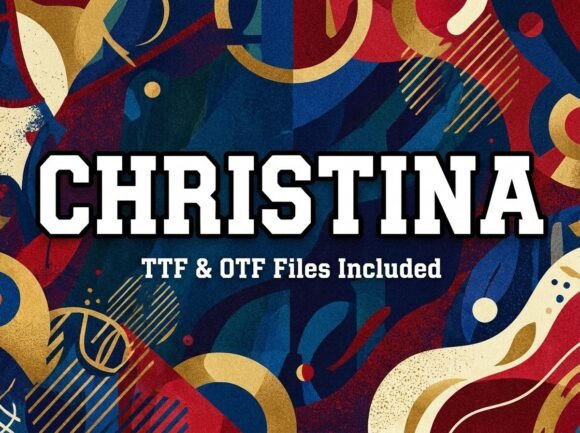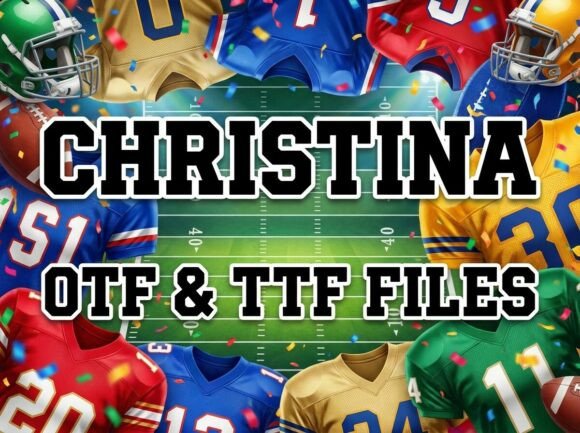
Discover the Stunning Christina Font: Elevate Your Designs with a Unique Artistic Touch
Have you ever been in the middle of a design project, pouring your heart and soul into it, only to hit a roadblock when trying to find the perfect font? I recall a particularly frustrating experience when a client requested a bold, eye-catching headline for their branding campaign, and I just couldn’t find anything that fit the bill. That’s when I stumbled upon the Christina Font, and it completely transformed my design. In this article, I’ll share my experience with this incredible font, its features, and how you can make the most of it in your designs.
A Personal Encounter with Christina Font
As a designer, I’m always on the lookout for fonts that can help my projects stand out. The Christina Font caught my attention with its unique artistic elements and strong visual personality. It’s a decorative display font designed to be the center of attention, making it perfect for creators who want to break away from the ordinary.
Christina Font: An Honest Review
Here’s what I love about the Christina Font:
- ✨ Unique artistic elements that add a touch of elegance to any design
- ✅ Strong visual personality that commands attention
- 💯 Versatile enough for bold headlines, artistic logos, and creative packaging
- 🎯 Maintains a professional and polished finish
However, there are a few quirks to be aware of:
- ⚠️ The font is an ALL-CAPS (Uppercase Only) display typeface, which means it doesn’t include lowercase letters.
- 🤔 This might limit its use for body text or other applications where lowercase letters are necessary.
The Story Behind Christina Font
The Christina Font was designed with the intention of creating a unique and artistic display font that would help designers elevate their work. The designer aimed to craft a font that would be both visually striking and versatile, making it perfect for a wide range of applications.
| Font Name | Christina Font |
| Author | kulturrno |
| Is the Christina Font suitable for body text? | No, the Christina Font is a display typeface designed for headlines, logos, and decorative initials. It’s not recommended for body text due to its ALL-CAPS design and lack of lowercase letters. |